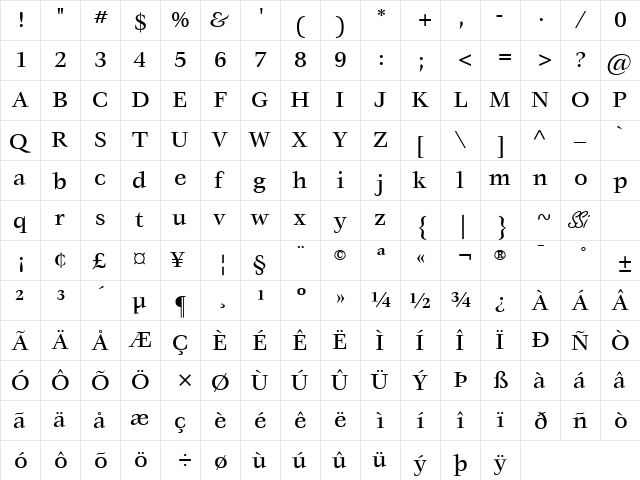
Vorace Medium SSi Medium
Design Context for Vorace Medium SSi Typeface
Vorace Medium SSi takes a measured approach to typography — its balanced proportions and neutral character make it a reliable workhorse for both digital and print work.